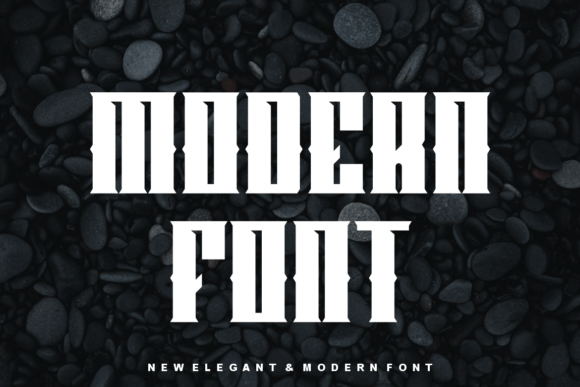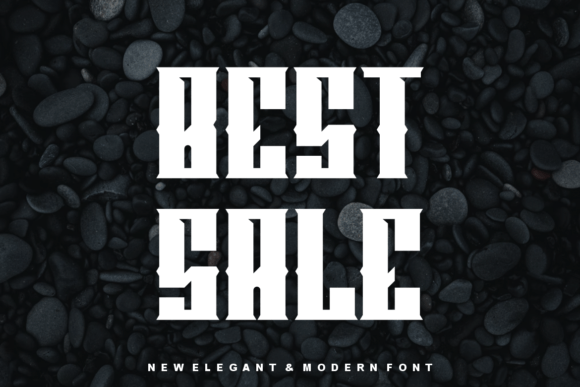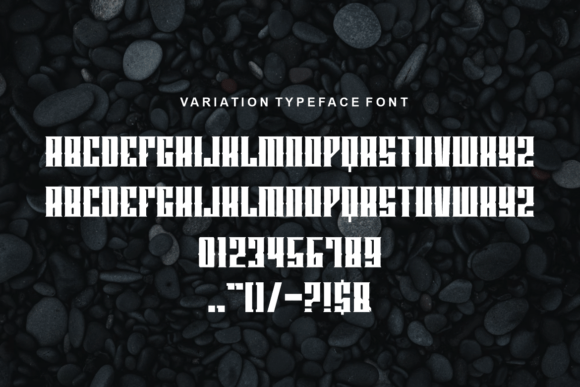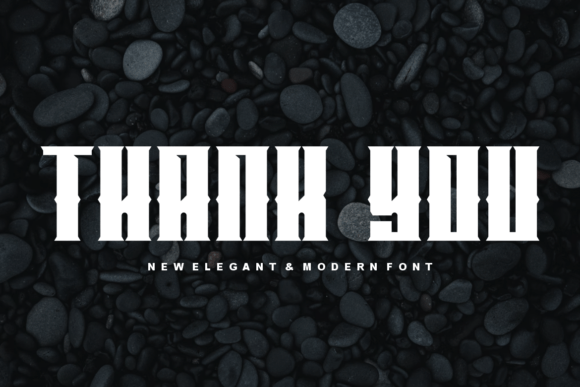
Introduction to Rogespog Font
Rogespog font is a modern and bold serif font.
Why Choose Rogespog Font?
Rogespog Font offers exceptional quality and versatility, making it a valuable addition to your design toolkit. Whether you’re creating for personal projects or commercial use, Rogespog Font delivers professional results.